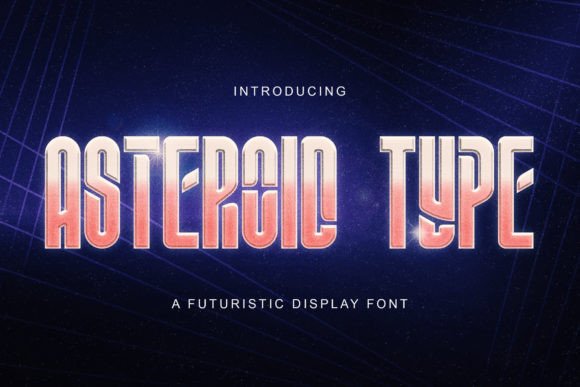
Unleash the Power of Modernity and Futurism with Asteroid Type Font: The Epitome of Digital Elegance
In a world saturated with information, capturing attention and making a lasting impression is paramount. Your designs deserve a font that not only communicates your message but also elevates it to new heights of visual appeal. Enter Asteroid Type Font, a masterpiece of digital artistry that embodies the essence of contemporary design.
Asteroid Type Font ascends beyond the ordinary, transcending the boundaries of conventional typography. Its bold, distinctive strokes carry an air of modernity, infusing your projects with a fresh, cutting-edge vibe. Whether you're crafting captivating titles, compelling subtitles, or user interfaces that demand attention, Asteroid Type Font stands as your steadfast companion.
Meticulously crafted by the visionary minds at StringLabs, Asteroid Type Font is a testament to their dedication to excellence. Its sans serif structure exudes a clean, minimalist aesthetic, allowing your content to shine without distraction. Yet, beneath its simplicity lies a depth of character, a subtle play of lines and curves that adds intrigue and visual interest.
Immerse yourself in the world of Asteroid Type Font, where technology and artistry converge. Its techno feel is an ode to the digital age, a perfect fit for projects that embrace innovation and push the boundaries of design. From sleek website designs to eye-catching social media graphics, Asteroid Type Font seamlessly adapts, enhancing your creations with its inherent charm.
Experience the allure of Asteroid Type Font, a font designed with the modern, discerning user in mind. Its crisp, clean lines render flawlessly on retina displays, ensuring that your designs captivate audiences across all devices. Prepare to witness the transformation as your projects take on a new level of sophistication, leaving an indelible mark on the digital landscape.
Don't let mediocrity hold you back. Embrace the future of digital design with Asteroid Type Font, the font that redefines elegance and innovation. Its bold, contemporary style will elevate your projects, propelling them to the forefront of visual excellence. Make your mark, leave your audience in awe, and experience the transformative power of Asteroid Type Font today.